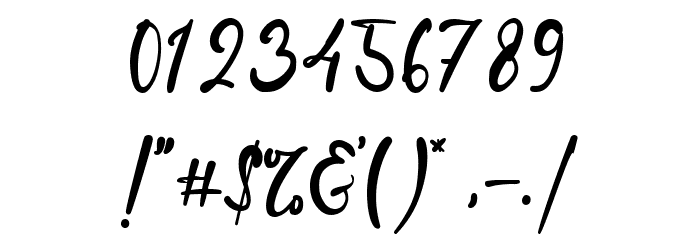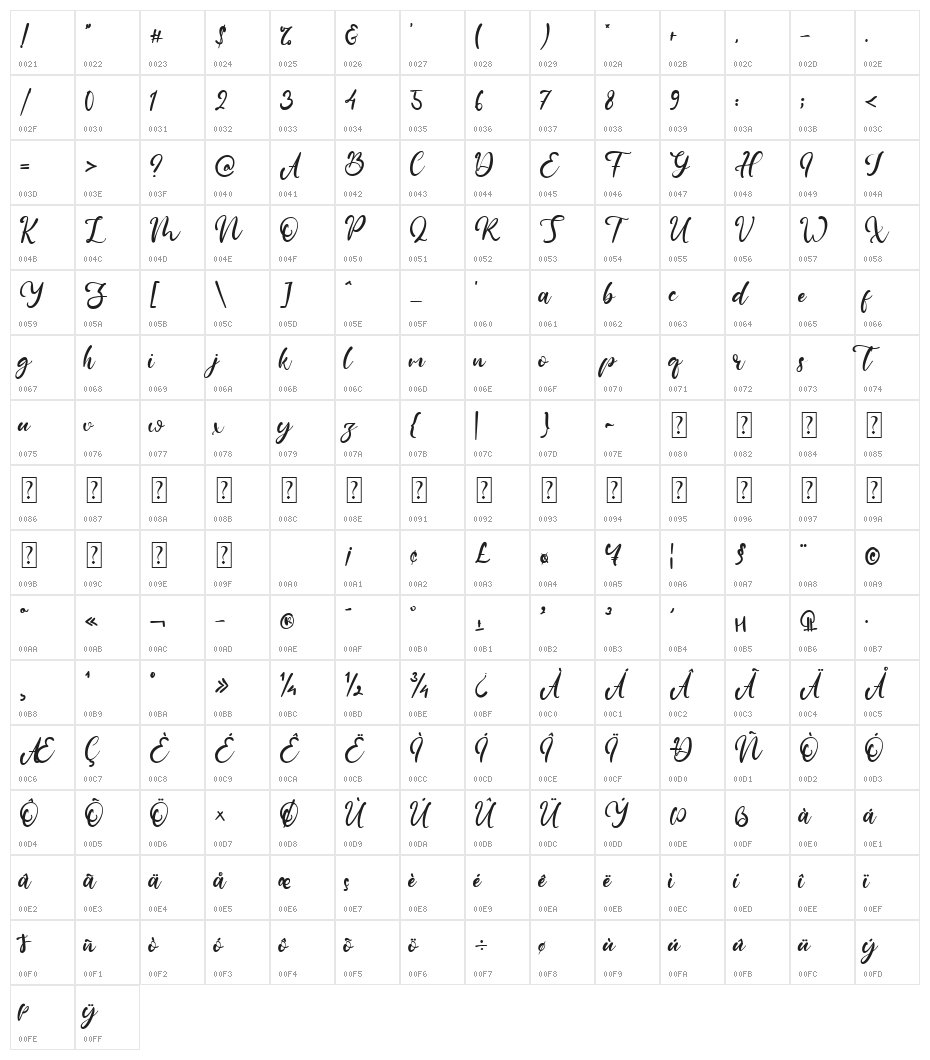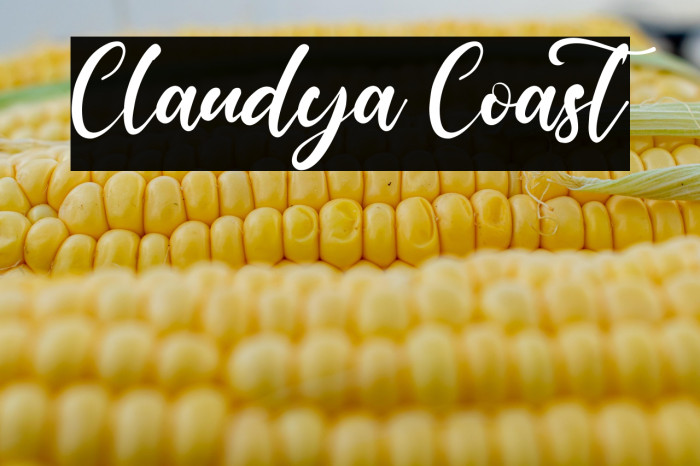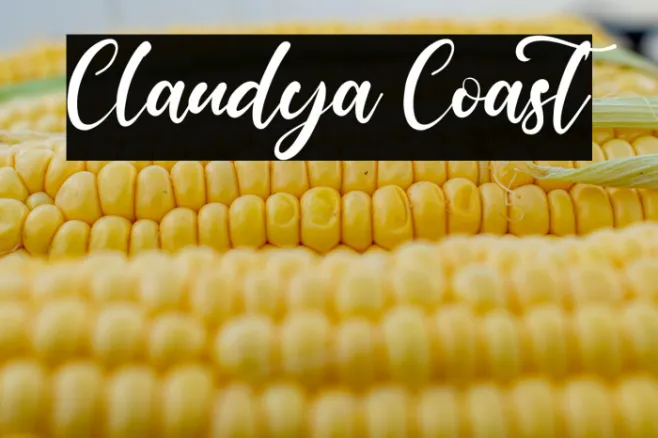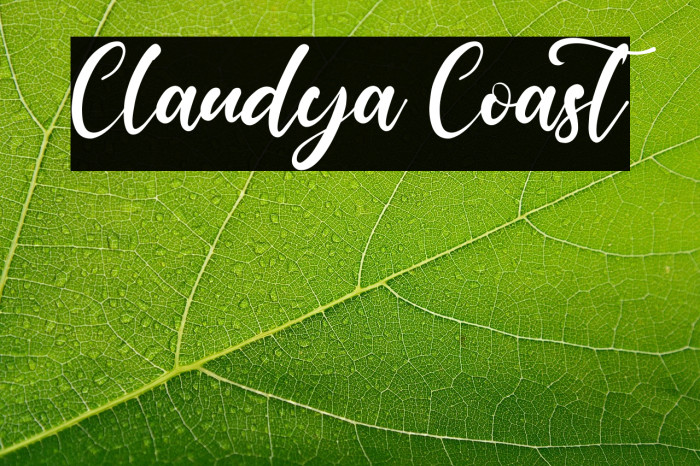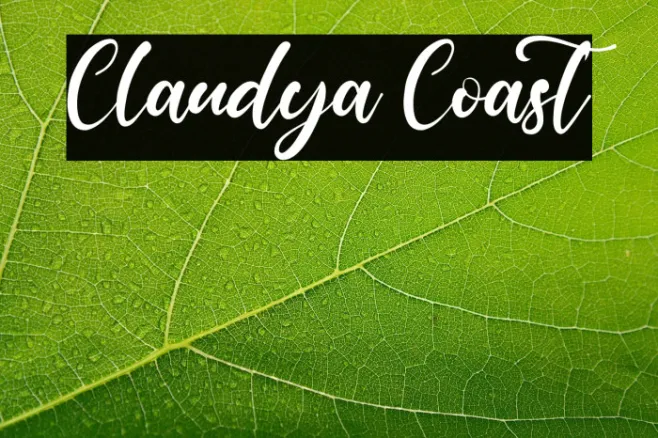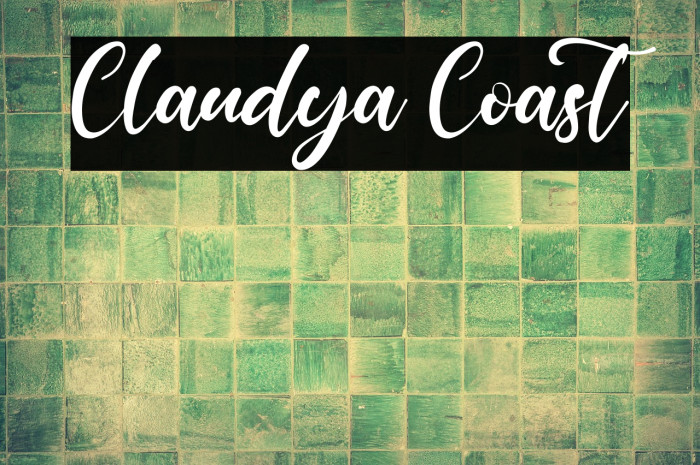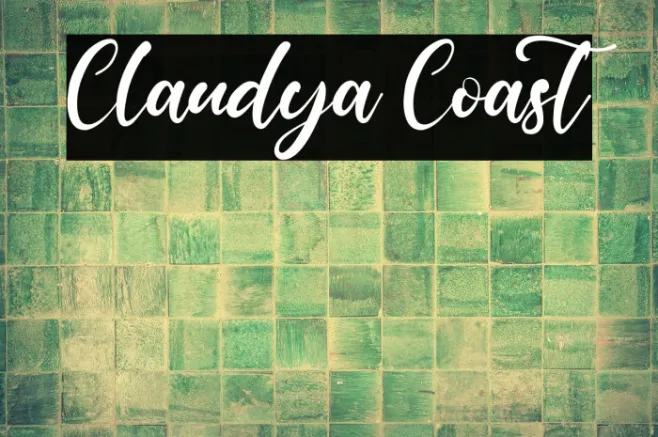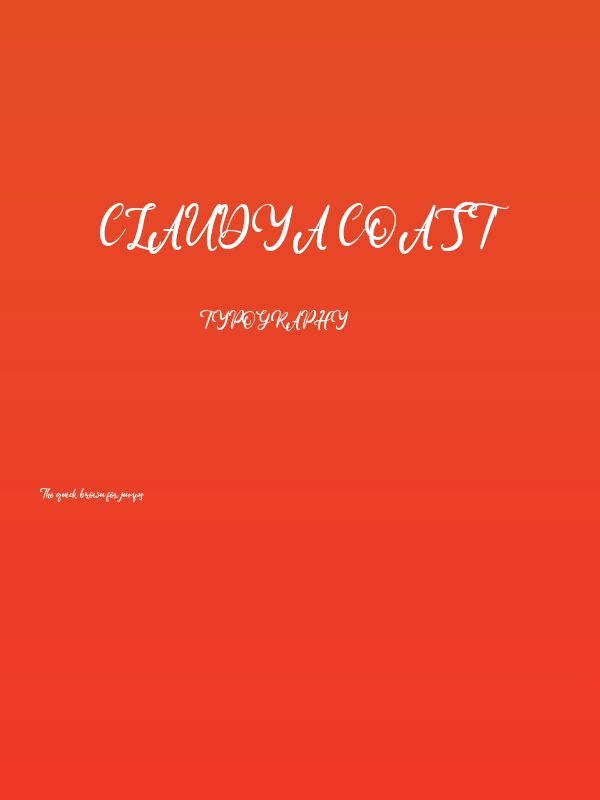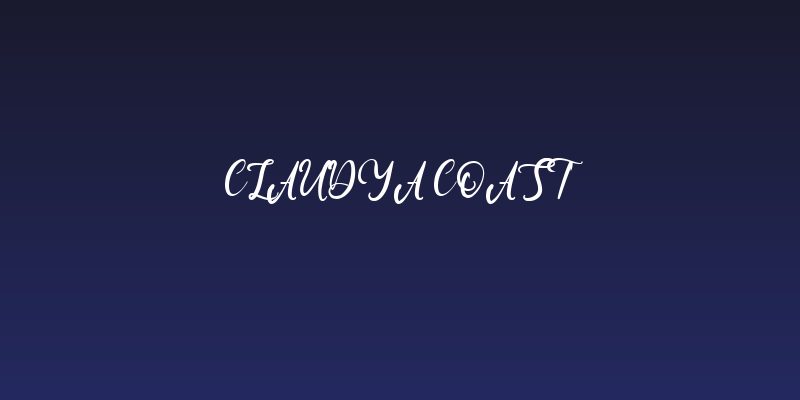
Claudya Coast Font
This font features a flowing, cursive style with elegant loops and swashes, giving it a handwritten appearance. The uppercase letters are bold and expressive, with distinctive flourishes that add a touch of sophistication. The lowercase letters maintain a consistent flow, enhancing readability while retaining an artistic flair. Numbers and special characters are designed to match the overall aesthetic, ensuring a cohesive look across all text. The font's style is both modern and classic, making it versatile for various design needs.